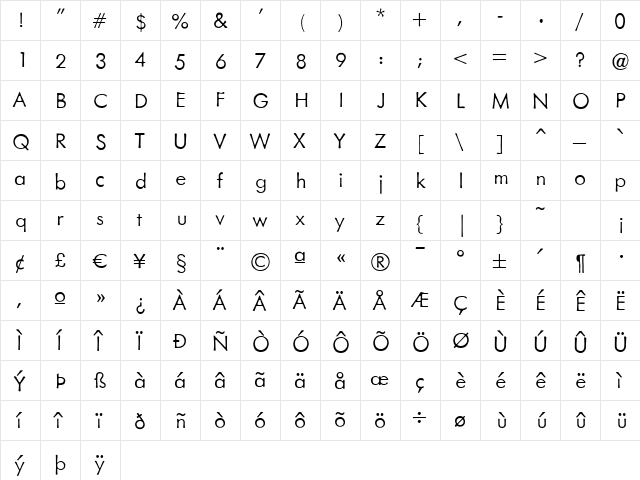
MetallophileSP8 Light
| Foundry | Mark Simonson |
| Designer | Mark Simonson |
Design Context for MetallophileSP8 Typeface
MetallophileSP8 is a composed and adaptable typeface that performs quietly and consistently across a wide range of design contexts. The delicate stroke weight brings airiness and refinement to layouts.